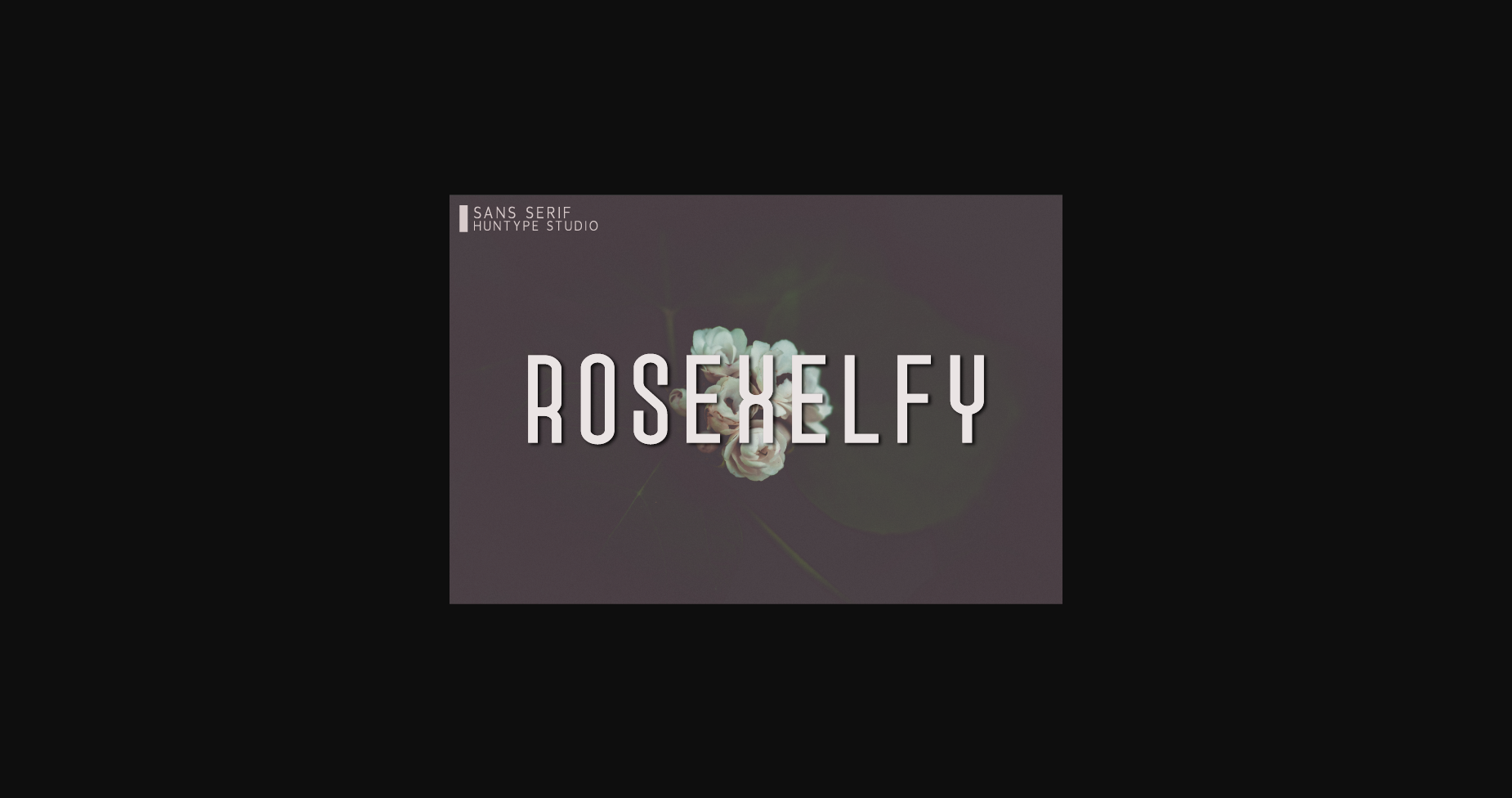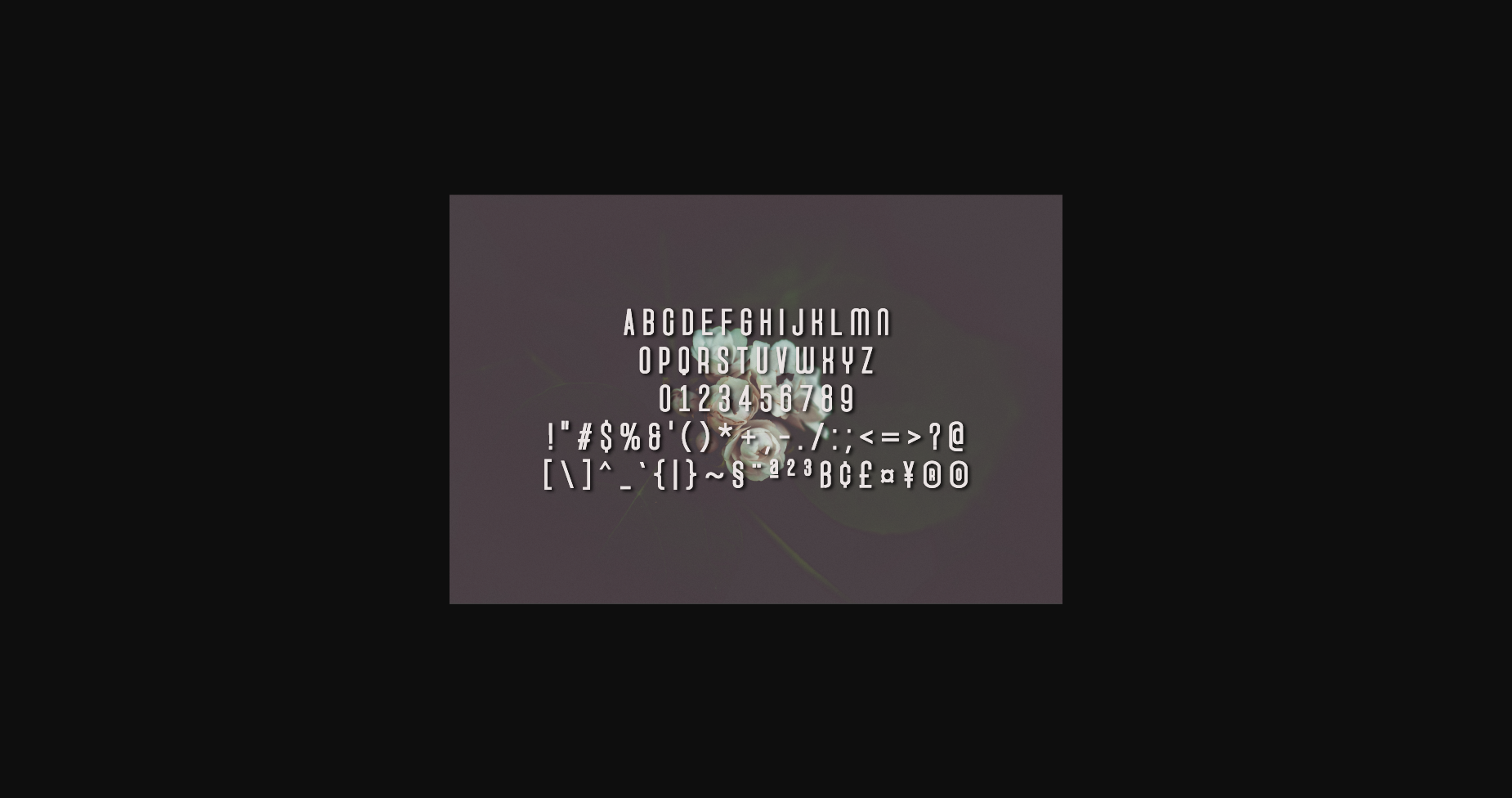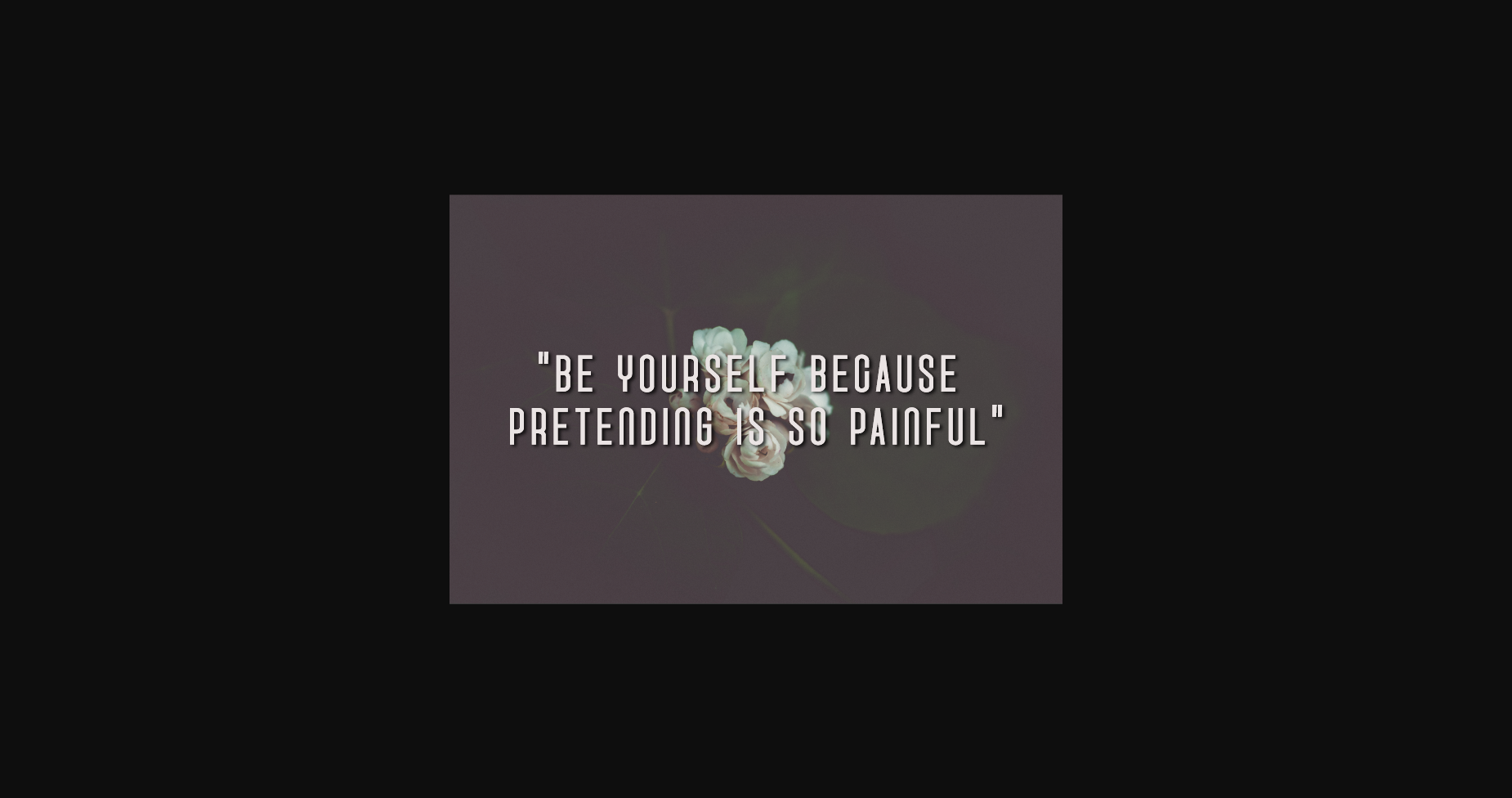
Rosexelfy Font
About Rosexelfy Font
Rosexelfy is a clean and simple sans serif font. With smooth and delicate lines, this font works beautifully for logos, branding, and web headings.